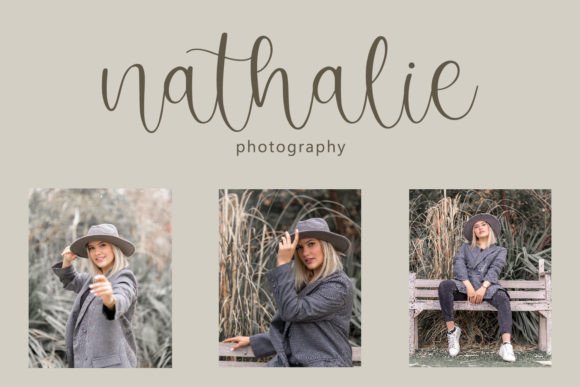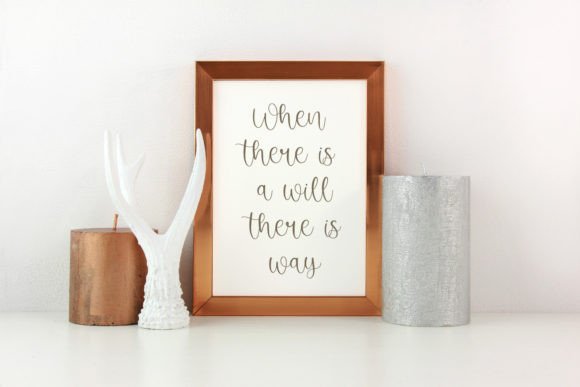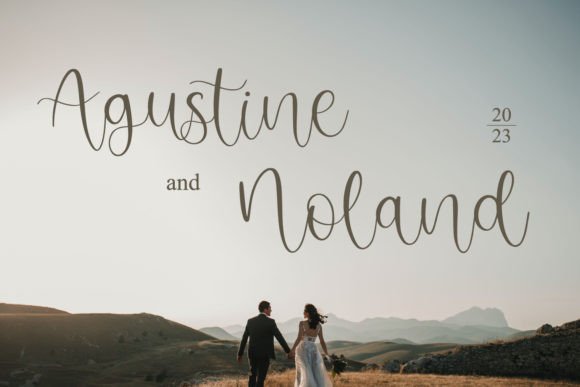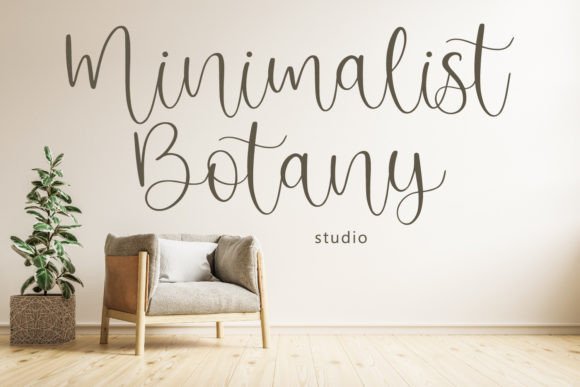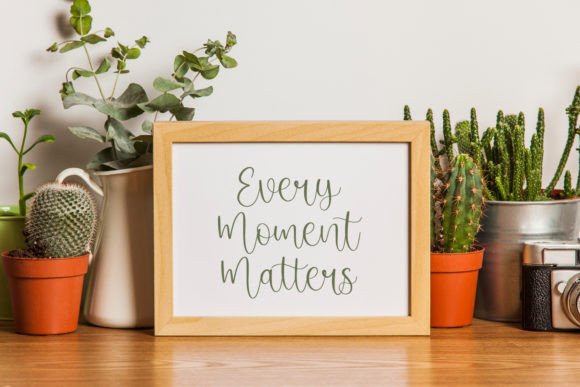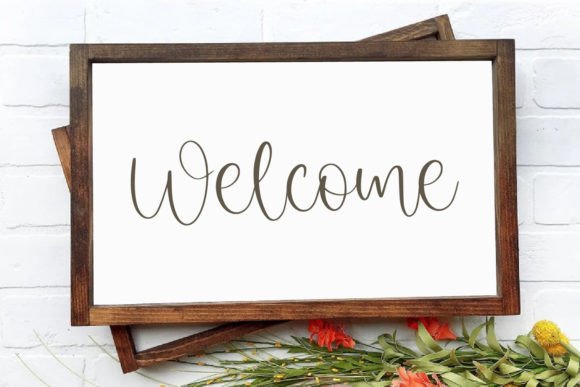
Diamond Magenta Font: Elevate Your Designs with Elegance and Sophistication
In the world of typography, fonts play a crucial role in conveying the tone and personality of a design. For crafty enthusiasts, designers, and artists, finding the perfect font can be a daunting task. However, if you’re looking for a typeface that exudes elegance and sophistication, look no further than the Diamond Magenta Font. This beautiful, handwritten font is perfect for adding a touch of whimsy and refinement to your projects.
What is Diamond Magenta Font?
Diamond Magenta is an elegant and dainty handwritten font that features sweet and delicate swashes. This original look will appeal to a wide range of crafty ideas, from letterheads and titles to stationery. The font’s unique blend of classic and modern elements makes it an excellent choice for designers seeking to create visually stunning and distinctive designs.
Key Features of Diamond Magenta Font
- Elegant Handwritten Style: Diamond Magenta boasts a beautiful, handwritten aesthetic that adds a personal touch to any design.
- Delicate Swashes: The font features intricate swashes that add a touch of sophistication and elegance.
- Crafty and Versatile: Suitable for a wide range of projects, including letterheads, titles, stationery, and more.
- Unique and Original: The Diamond Magenta Font’s distinctive look sets it apart from other typefaces, making it perfect for designers seeking to create something truly special.
Diamond Magenta Font is an excellent choice for designers and crafters who want to add a touch of elegance and sophistication to their projects. Whether you’re creating:
- Stationery and Invitations: Add a personal touch to your stationery and invitations with the Diamond Magenta Font’s beautiful, handwritten style.
- Logos and Branding: Create a lasting impression with a unique and memorable logo that showcases your brand’s personality.
- Social Media Graphics: Elevate your social media presence with eye-catching graphics that feature the Diamond Magenta Font’s elegant aesthetic.
- Packaging and Labels: Stand out on store shelves with packaging and labels that feature the Diamond Magenta Font’s distinctive look.
Tips for Using Diamond Magenta Font
To get the most out of the Diamond Magenta Font, consider the following tips:
- Pair with Complementary Fonts: Combine Diamond Magenta with complementary fonts to create a visually appealing contrast.
- Experiment with Colors: Try pairing the font with different colors to find the perfect combination that suits your design.
- Pay Attention to Spacing: Adjust the spacing between letters and words to ensure a clean and elegant look.
In conclusion, the Diamond Magenta Font is an exquisite and elegant typeface that is perfect for designers and crafters seeking to add a touch of sophistication to their projects. With its delicate swashes, beautiful handwritten style, and versatile nature, this font is sure to become a staple in your design toolkit. So why wait? Discover the beauty of Diamond Magenta Font and elevate your designs to new heights of elegance and refinement.